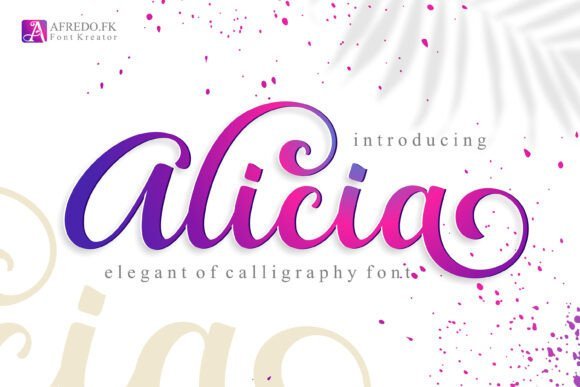
A Fresh Twist on Timeless Elegance
For designers looking to add a touch of modern elegance to their next project, the Alicia Font is a game-changer. This stunning calligraphy font is perfect for branding materials, business cards, quotes, posters, and logos, offering a fresh and sophisticated look that’s sure to impress. With its flowing baseline and decorative characters, Alicia Font is a valuable addition to any designer’s toolkit, offering endless possibilities for creative expression and design innovation.
Alicia Font Key Features
- Font Family: Alicia
- Font Style: Script
- Unique Characteristic: Hand-drawn, elegant, and cursive script font, ideal for creative and artistic designs.
Alicia Font Review
Alicia Font is a beautiful, elegant script font that exudes sophistication and refinement. It’s perfect for designers looking to add a touch of luxury to their projects. ✨
The Alicia Font features include:
- Highly customizable: It’s available in various weights, including bold and italic styles, making it suitable for a wide range of applications.
- Beautifully designed: The font’s flowing lines and subtle flourishes create a visually appealing effect that’s sure to captivate audiences.
- Excellent for branding: Alicia Font is perfect for creating logos, headings, and other branding materials that demand a high level of sophistication.
- Not ideal for body text: While Alicia Font is stunning for headings and titles, it may not be the best choice for large blocks of body text due to its flowing nature.
- May require adjustments: Depending on the project, you may need to adjust the font size and spacing to ensure optimal readability.
Overall, Alicia Font is a high-quality, stylish font that’s sure to elevate your designs. While it may not be perfect for every application, its beauty and customization options make it a valuable addition to any designer’s toolkit. ✨